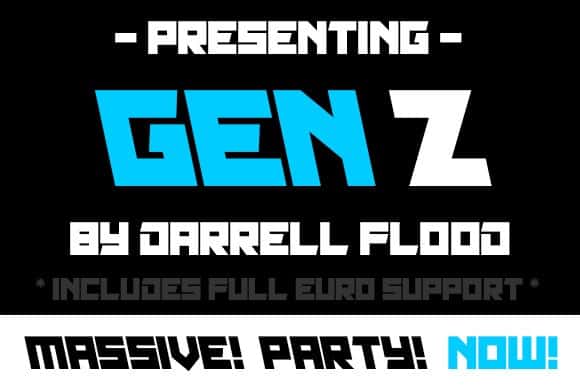
Gen Z Display Font
Gen Z Font is a very characteristic Display Font with a strong Sports theme and is very suitable for the Esport Logo as well. Made from font designer named Dadiomouse. This typeface is a bold, modern display font with a cool futuristic style. Perfect for tech and science themes or just adding extra visual impact to your creations!